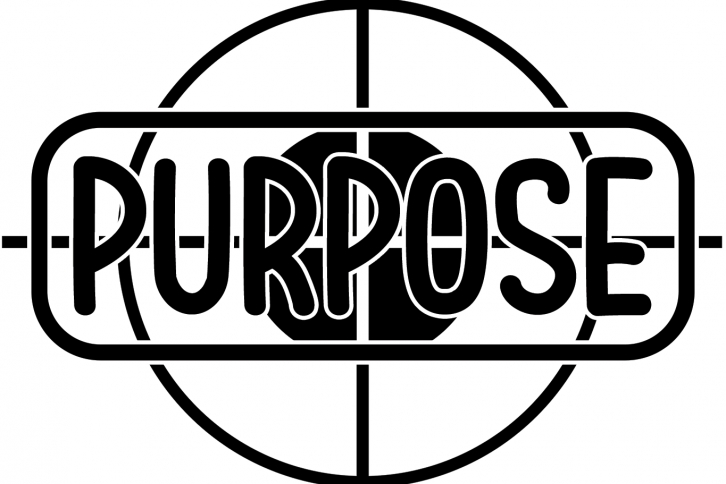
Purpose is a quirky and chic lettered display font. It can easily be matched to an incredibly large set of projects, so add it to your creative ideas and notice how it makes them stand out!